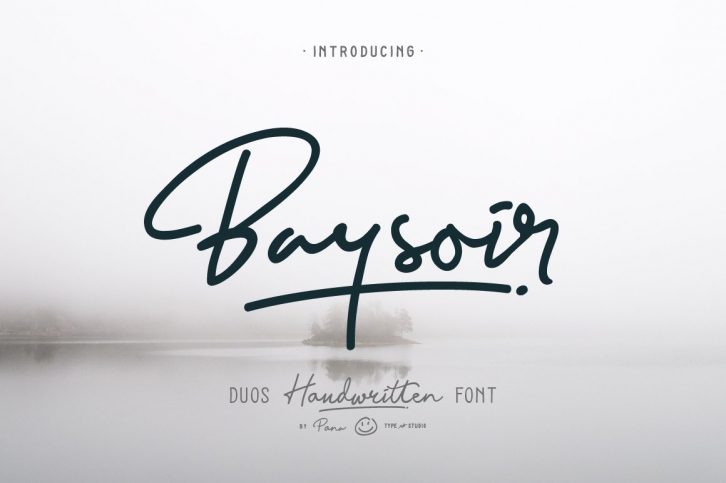
Baysoir Duo Handwritten FONT Download
Baysoirâ„¢ is a handwritten signature font, available on script and Display Sans serif typeface. These two lovely fonts would be perfect to combine in your design. we develop Its with natural and fresh look, made with hand painted and carefully crafted.
Opentype Features :
• Stylistic Alternates